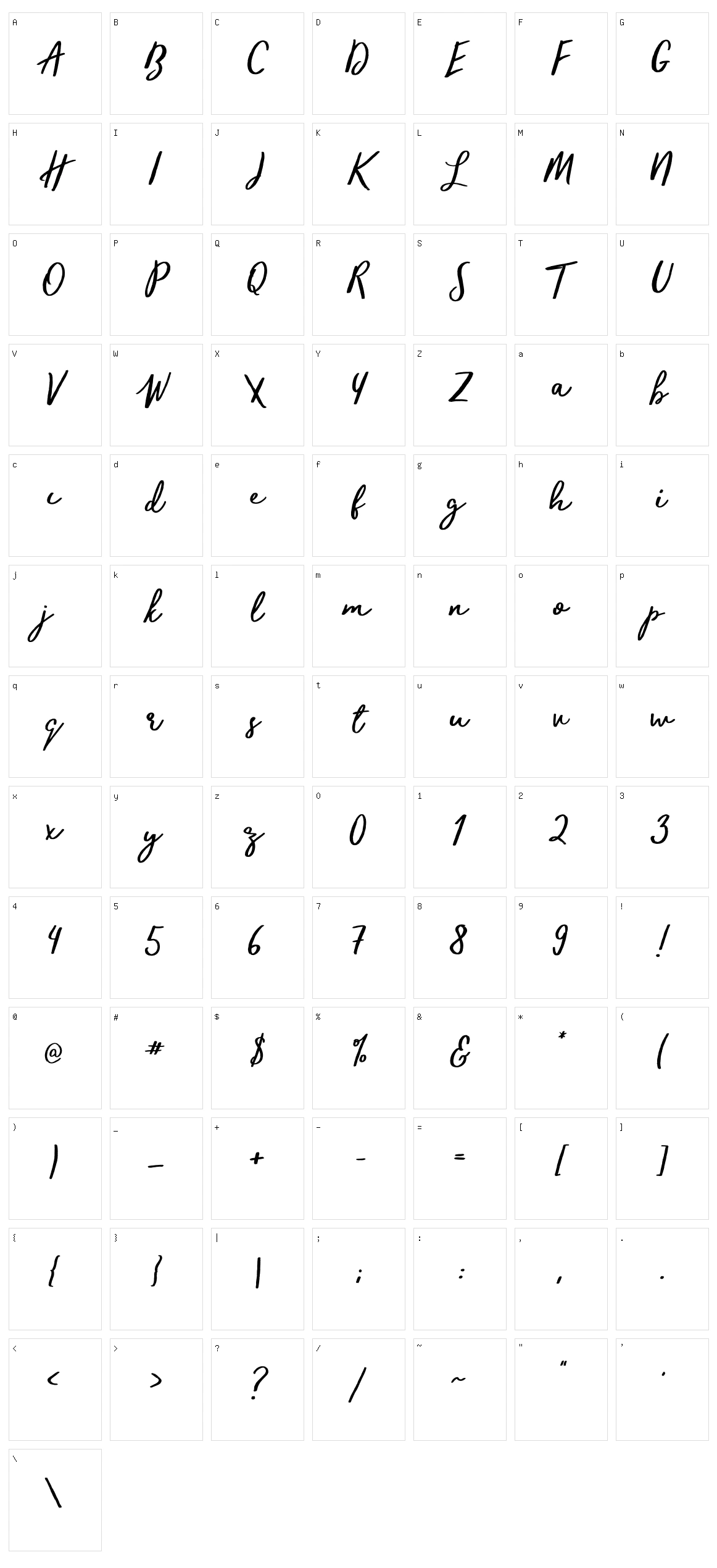
The free font Trendsetter is carefully designed by Mats-Peter Forss, showcasing a thoughtful balance of creativity and usability and falls under the Script font style. When you download the ZIP file, it contains only 85.6 KB of font files, making it lightweight and quick to download. Please review the license details below to understand permitted usage and distribution rights. If license information is not available, we recommend using this font for personal projects only or contacting the author directly for commercial usage permissions.